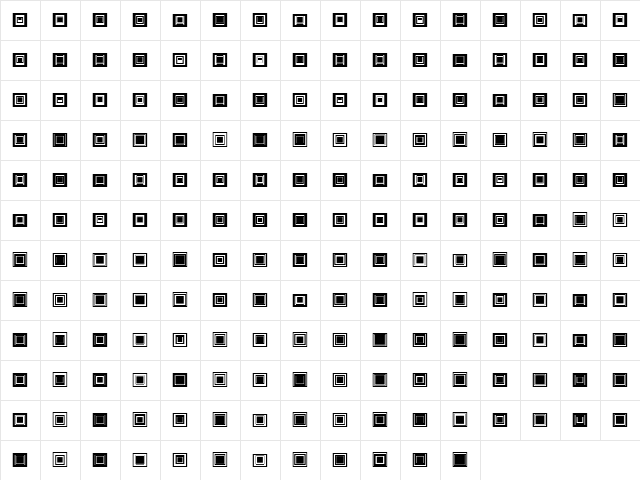
Yonkakubotan Regular
Design Context for Yonkakubotan
Yonkakubotan is a composed and adaptable typeface that performs quietly and consistently across a wide range of design contexts.
Pro Tip: Use Yonkakubotan in both headline and body roles to test its range before committing to a single application.